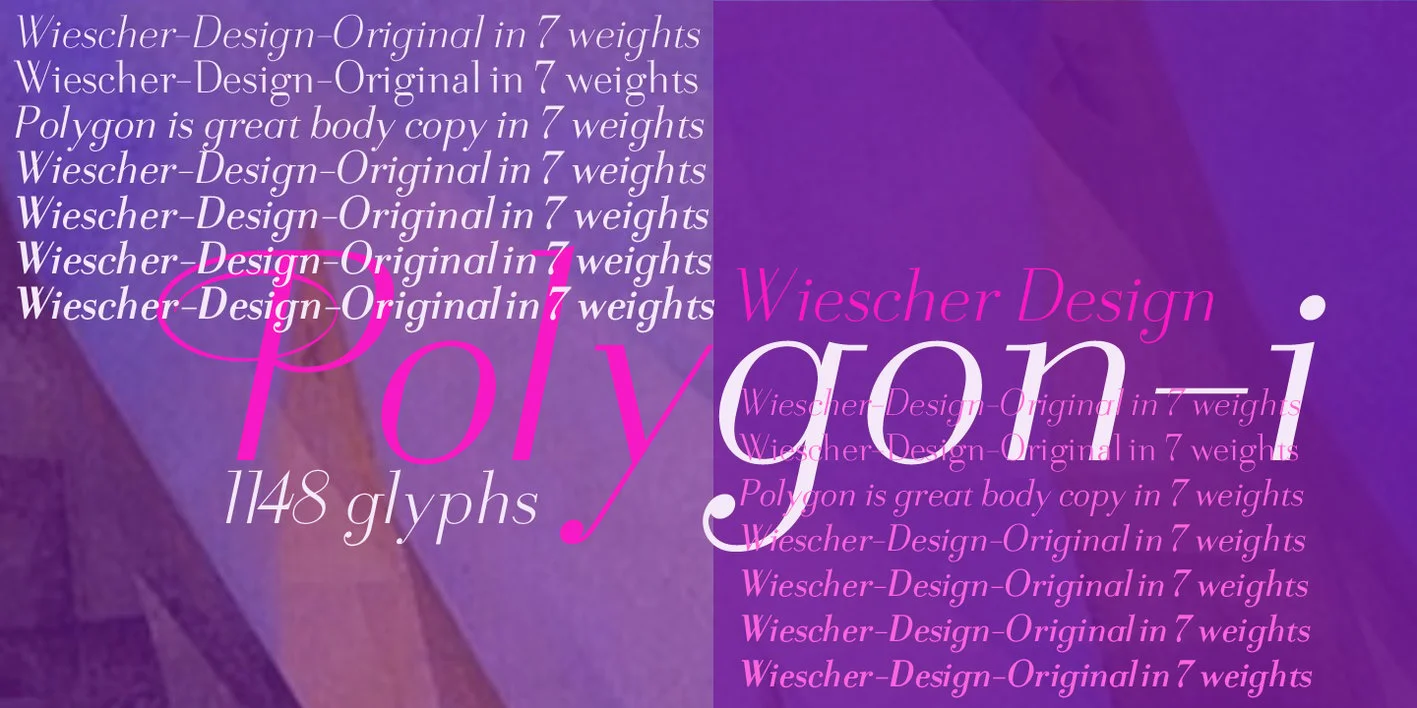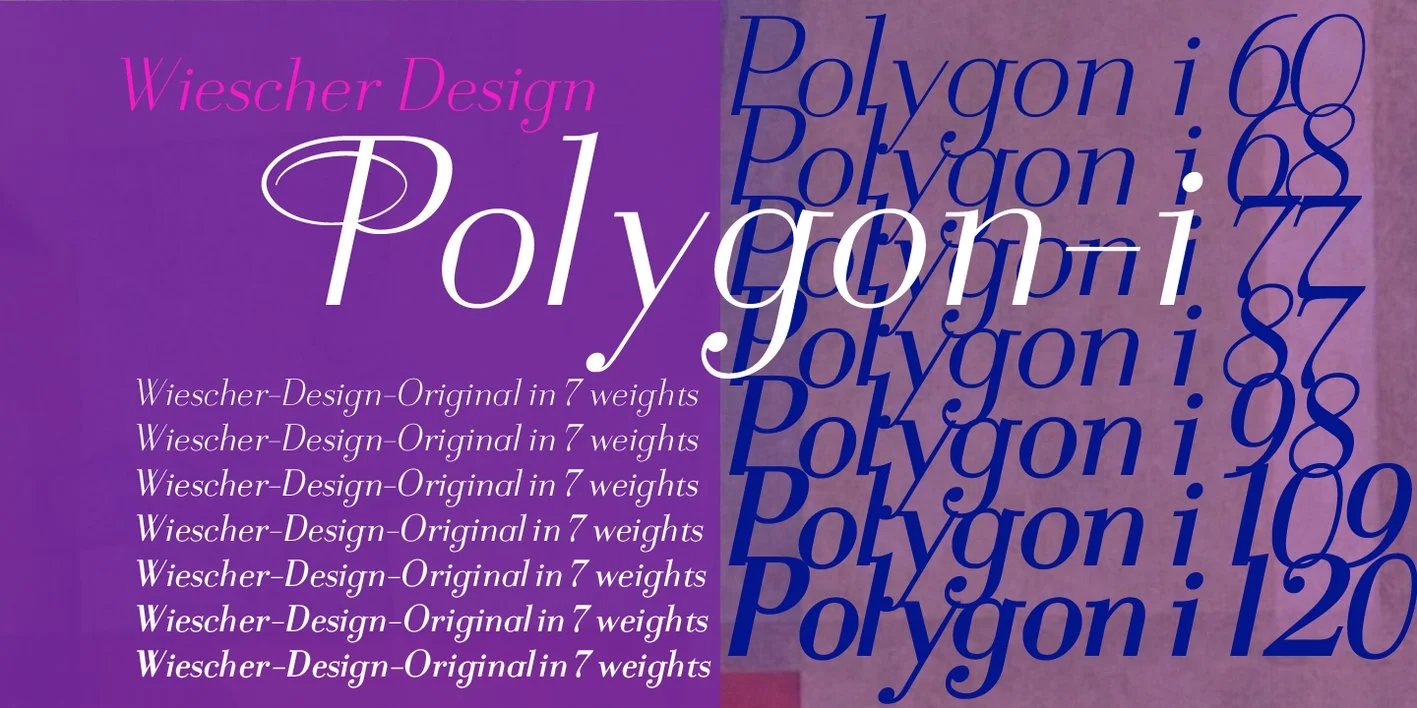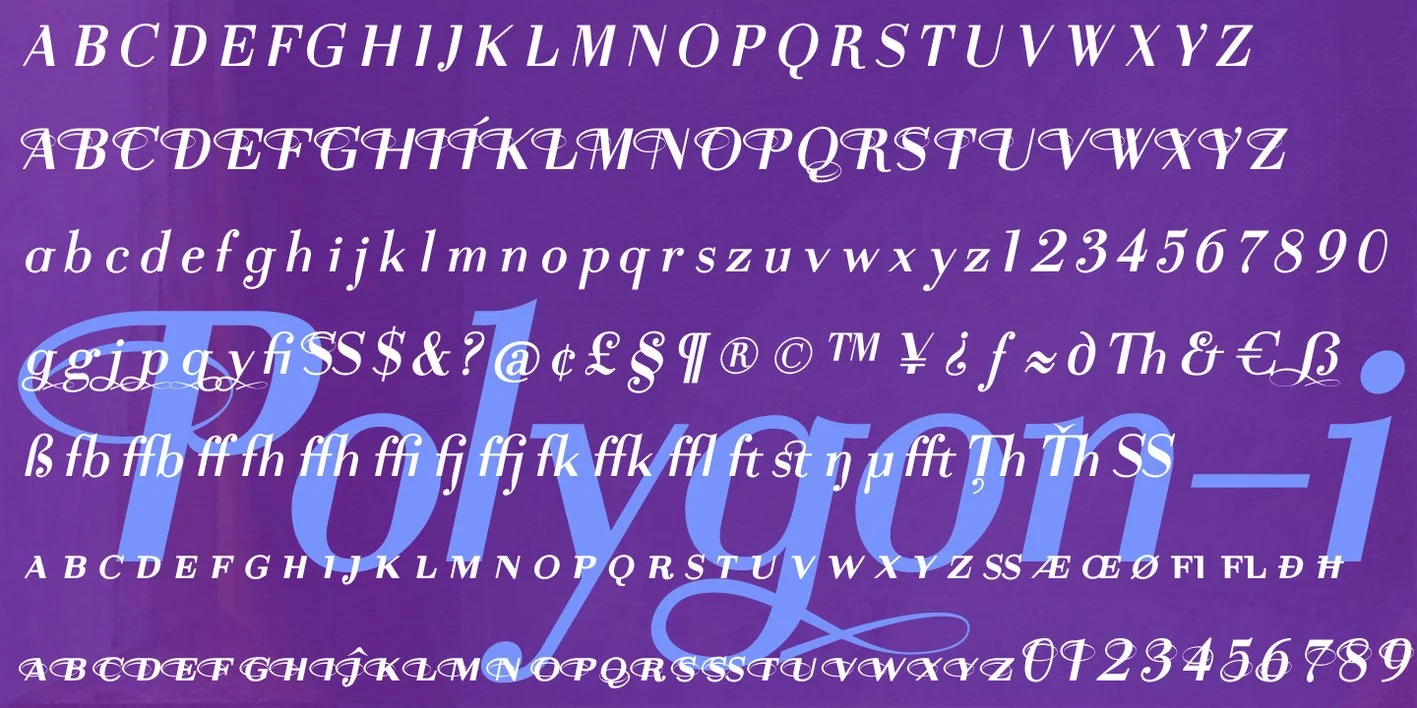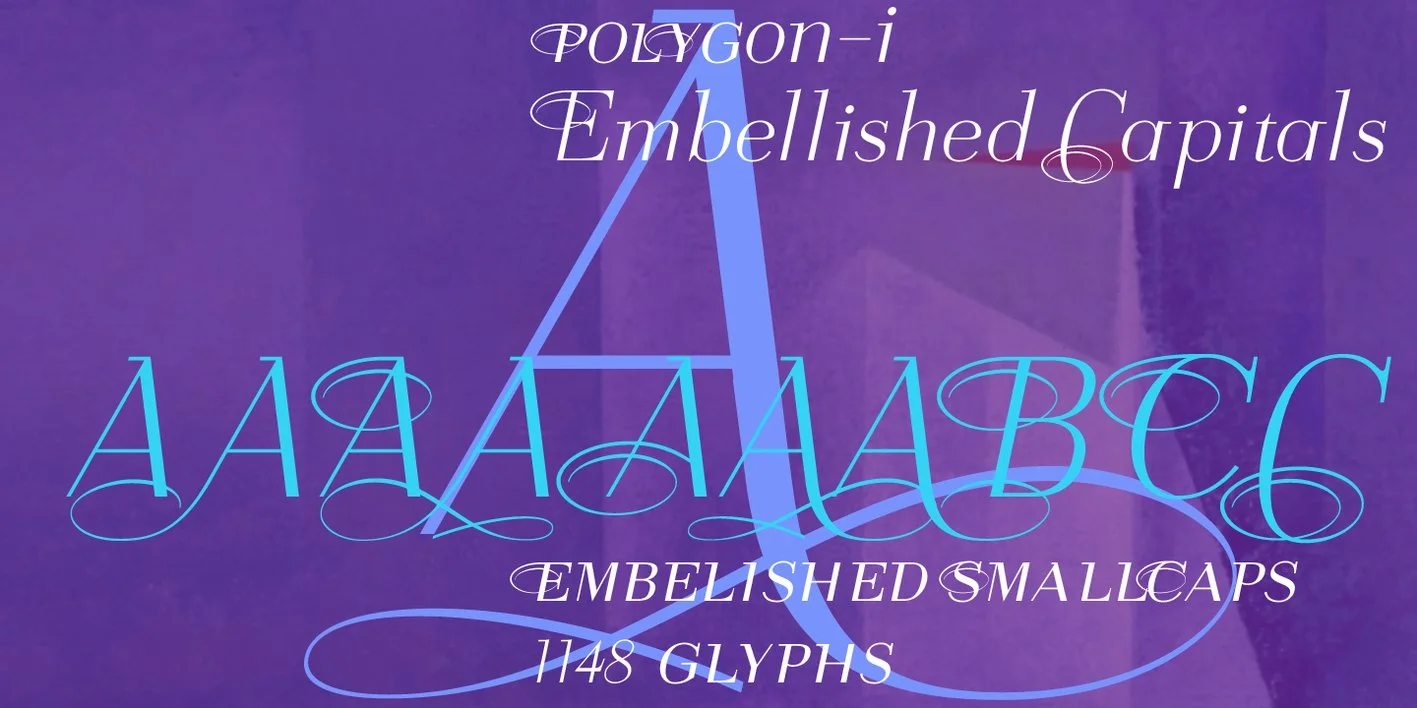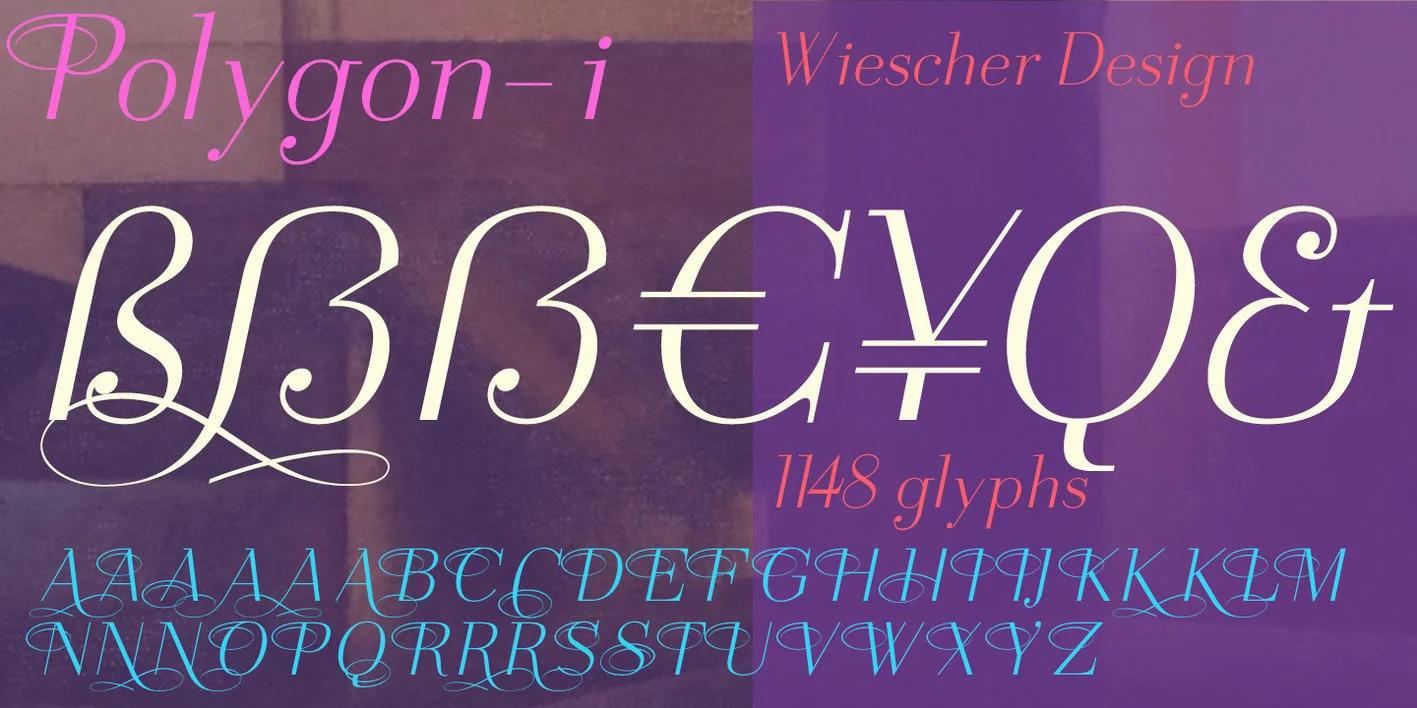
Polygon-i Font
Few typefaces manage to balance refined proportions and careful stroke modulation with genuine day-to-day practicality. Polygon-i is one of them. The typeface brings a versatile sensibility to a broad range of creative disciplines, with a confident voice that adapts to diverse briefs that holds up whether the work is print-first or screen-first.
In practice, Polygon-i proves particularly effective for signage systems, environmental graphics, annual reports, poster creation, logo design. Designers reaching for it find that the type decisions feel resolved rather than laboured — a useful quality when client timelines are tight.
The range of applications extends to editorial layouts, web design, packaging design, product labels. That breadth is deliberate: the proportions and spacing were stress-tested across a wide range of mock briefs before the typeface was finalised.
Pairing Polygon-i with a contrasting serif or a neutral grotesque gives mixed-format layouts a clear visual grammar without requiring constant size adjustments to establish hierarchy.
Graphic designers working on identity systems find Polygon-i a reliable choice for projects that demand both personality and restraint. The design avoids the self-conscious quirkiness that dates quickly, settling instead for considered distinctiveness that holds up over time.